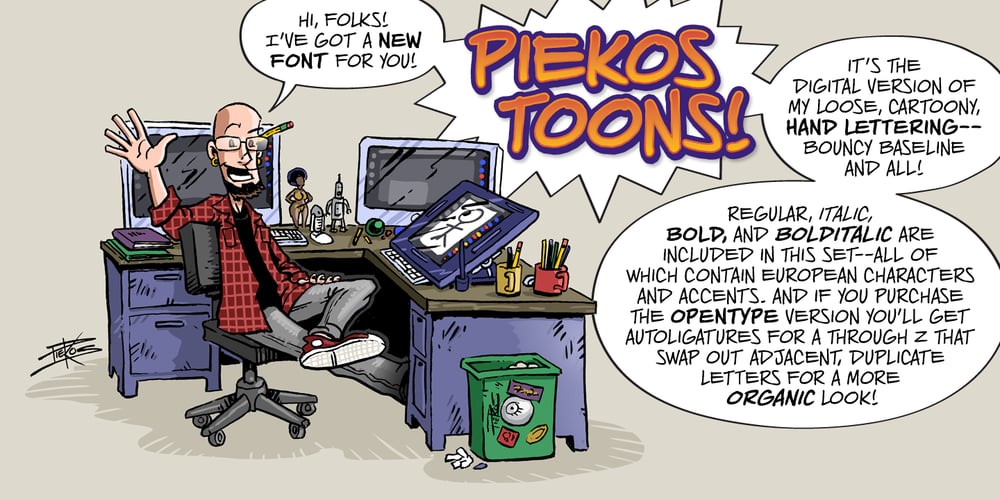
Piekos Toons BB
Piekos Toons BB font
Piekos Toons BB Font Family was designed by Nate Piekos and published by Blambot. Piekos Toons BB contains 8 styles and family package options. In August of 2014, Blambot.com creator, Nate Piekos, attempted to create a “24 hour font”. After fourteen hours at the computer, he threw in the towel, but he had the promising beginnings of a new font family! Weeks later, after devoting the proper time to revising the design, PiekosToons BB was born! This cartoony comic strip family comes with Regular, Italic, Bold, and BoldItalic, with a large compliment of European characters. The opentype version contains autoligatures to swap out identical, adjacent letters for a more hand lettered feel.